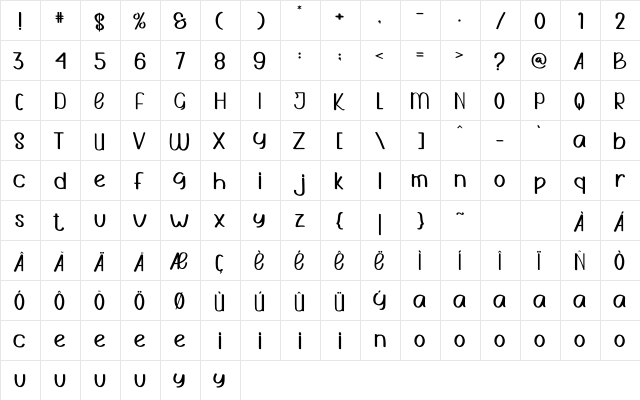
THE HUMBLE Regular
Design Context for THE HUMBLE Typeface
THE HUMBLE is a composed and adaptable typeface that performs quietly and consistently across a wide range of design contexts.
Pro Tip: Use THE HUMBLE in both headline and body roles to test its range before committing to a single application.